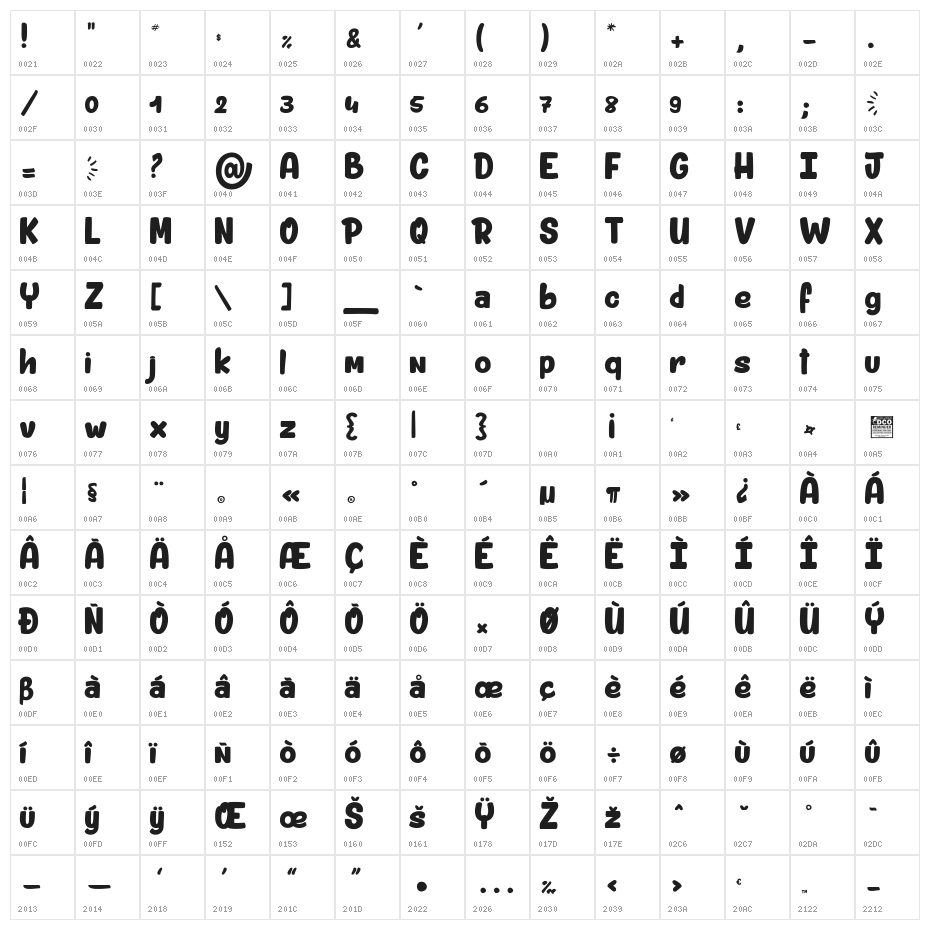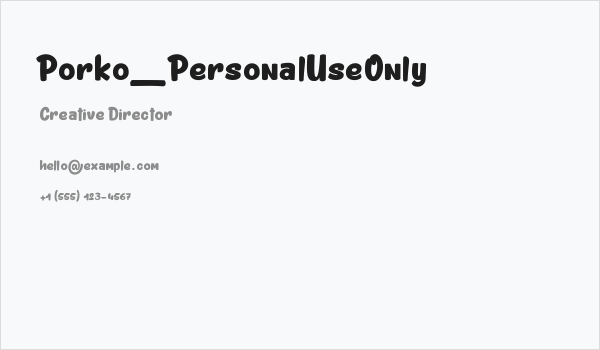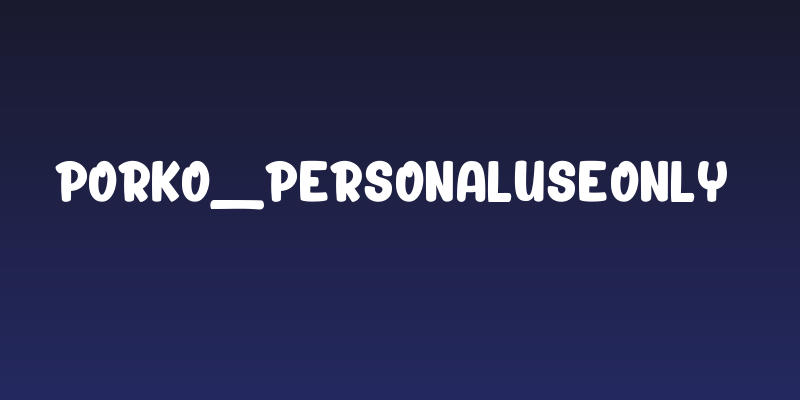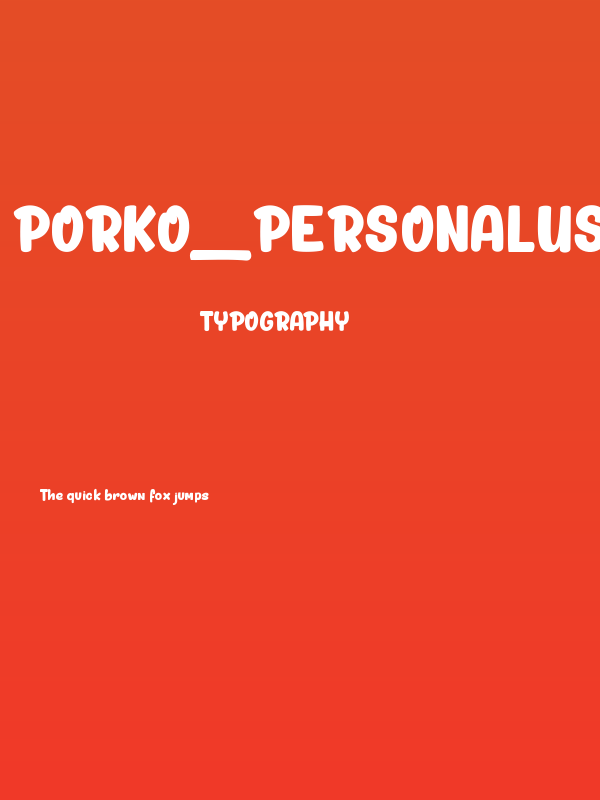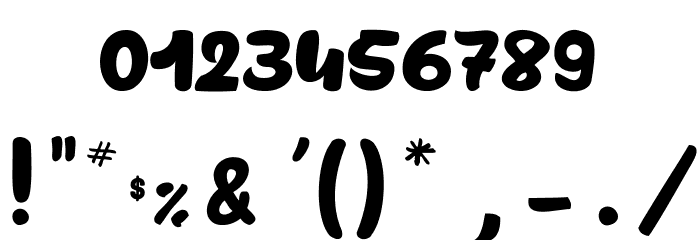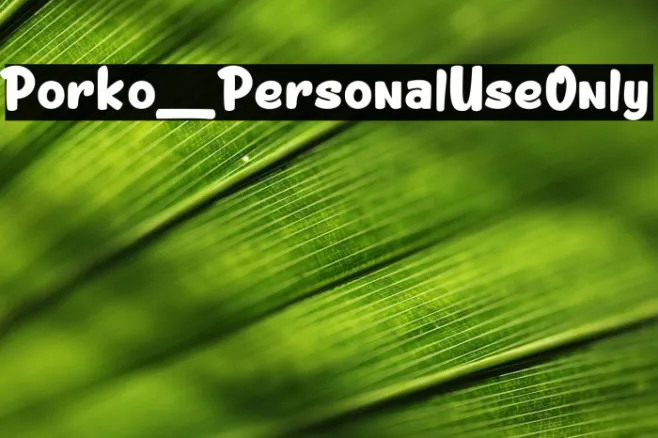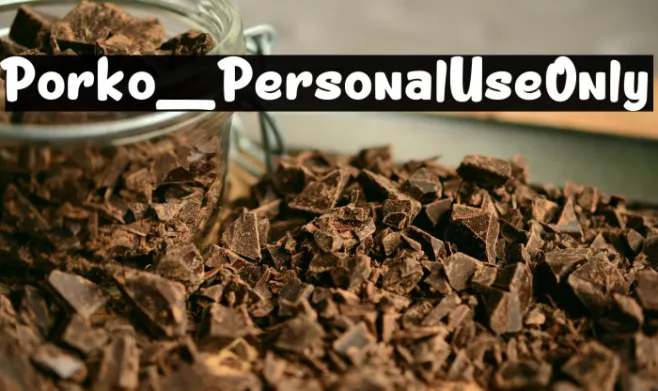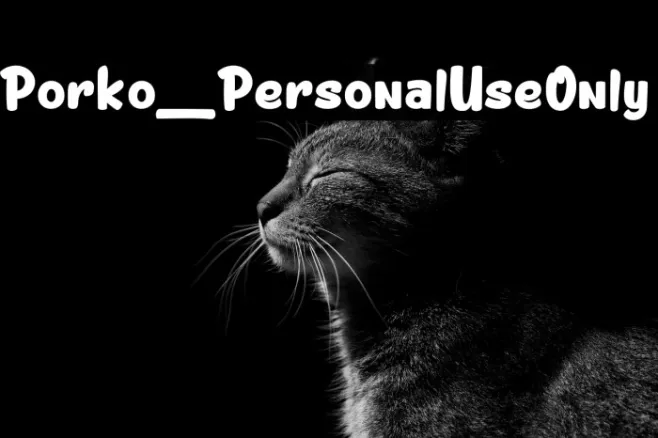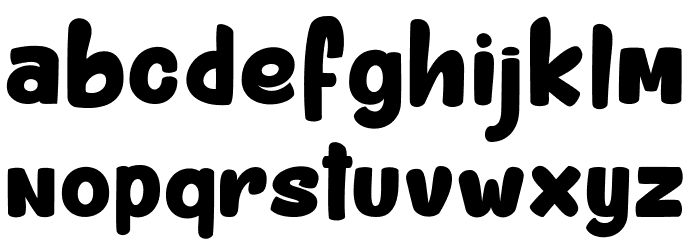
Porko_PersonalUseOnly Font
Porko_PersonalUseOnly Description
This font features a bold and playful design with rounded edges and a slightly irregular shape, giving it a friendly and approachable appearance. The characters are thick and well-defined, with a consistent weight throughout. The uppercase letters are slightly taller than the lowercase, maintaining a uniform width that enhances readability. The numbers and special characters follow the same playful style, making them easily distinguishable. This font's unique style is perfect for projects that require a fun and informal touch.
| Proposed Projects | Ideal for children's books, playful branding, party invitations, and casual posters. |